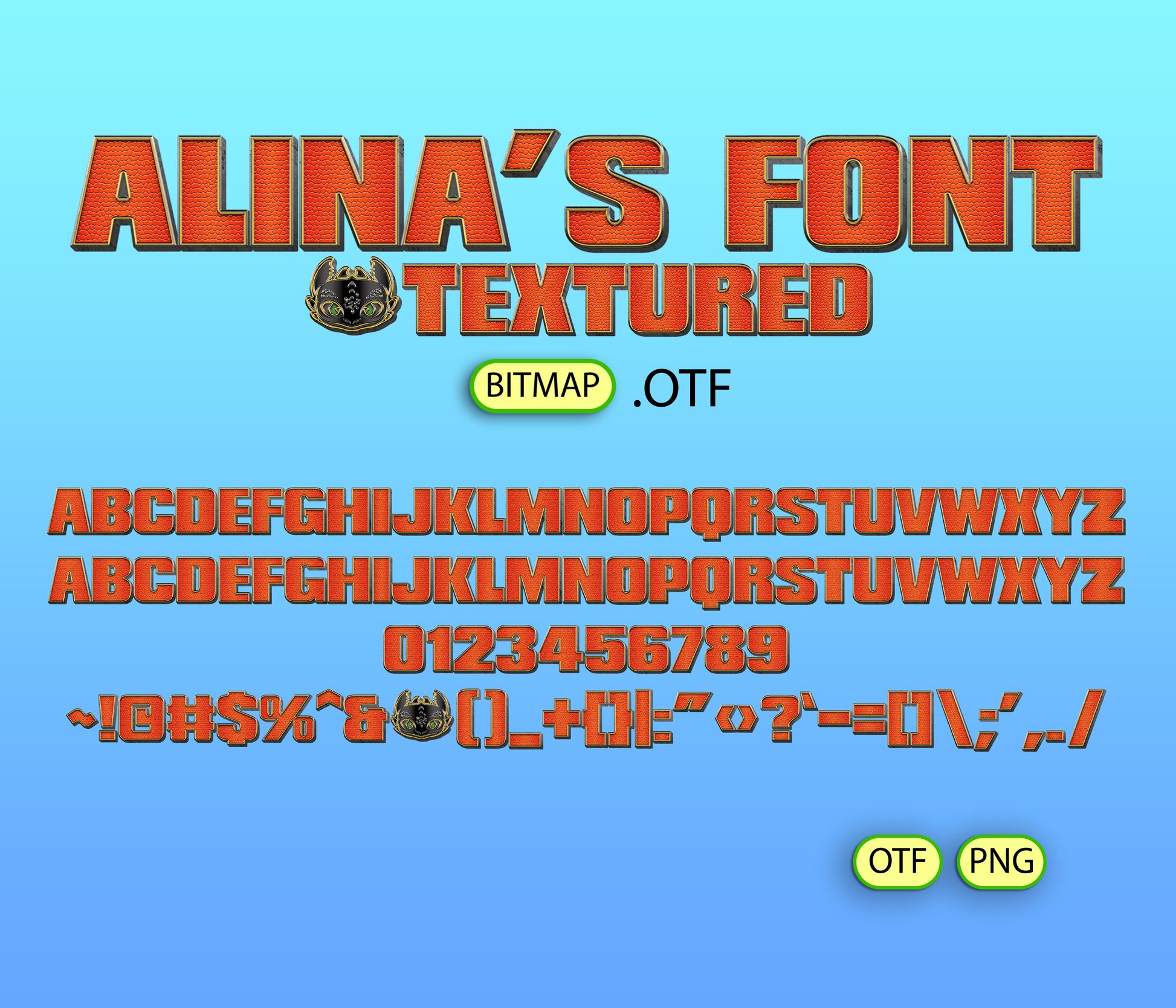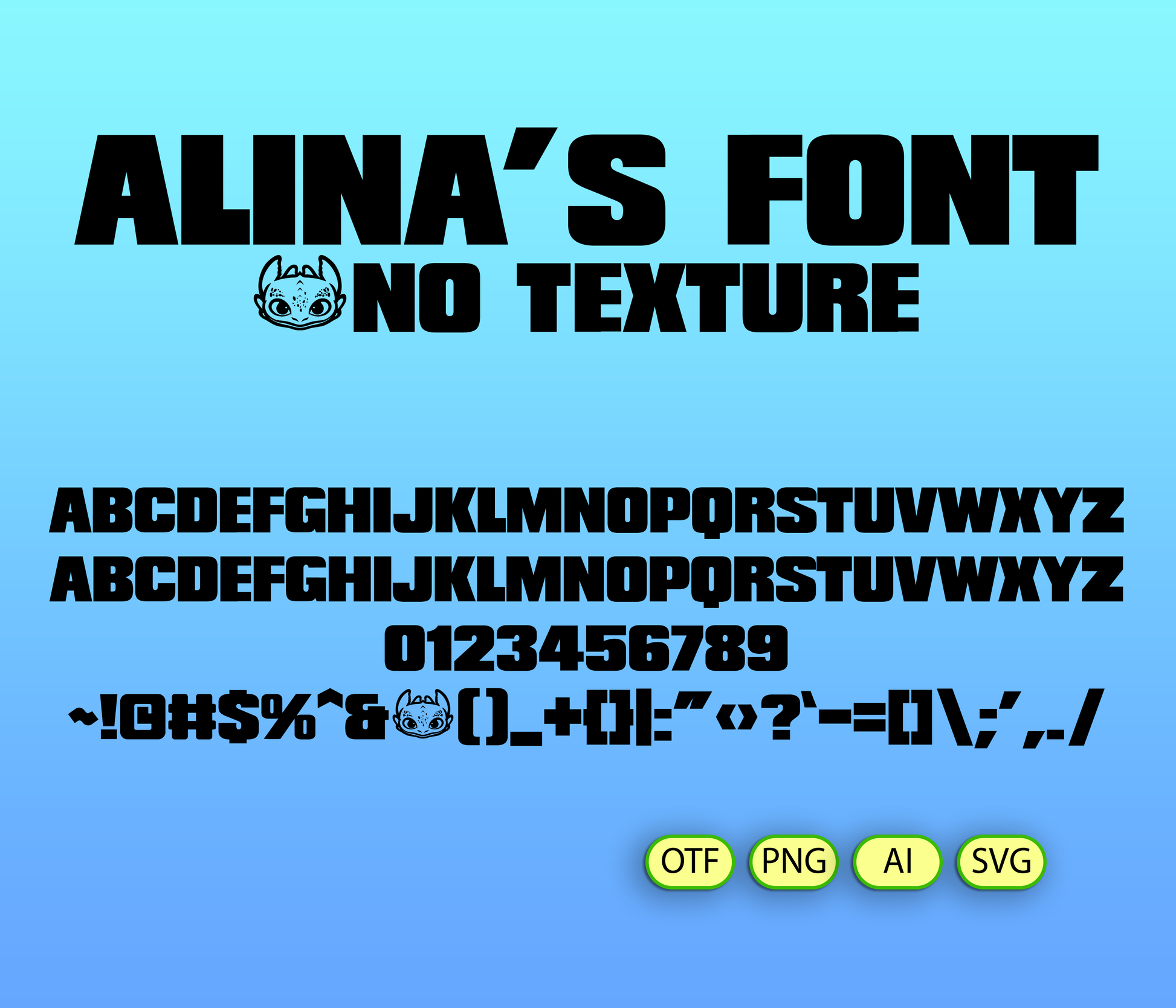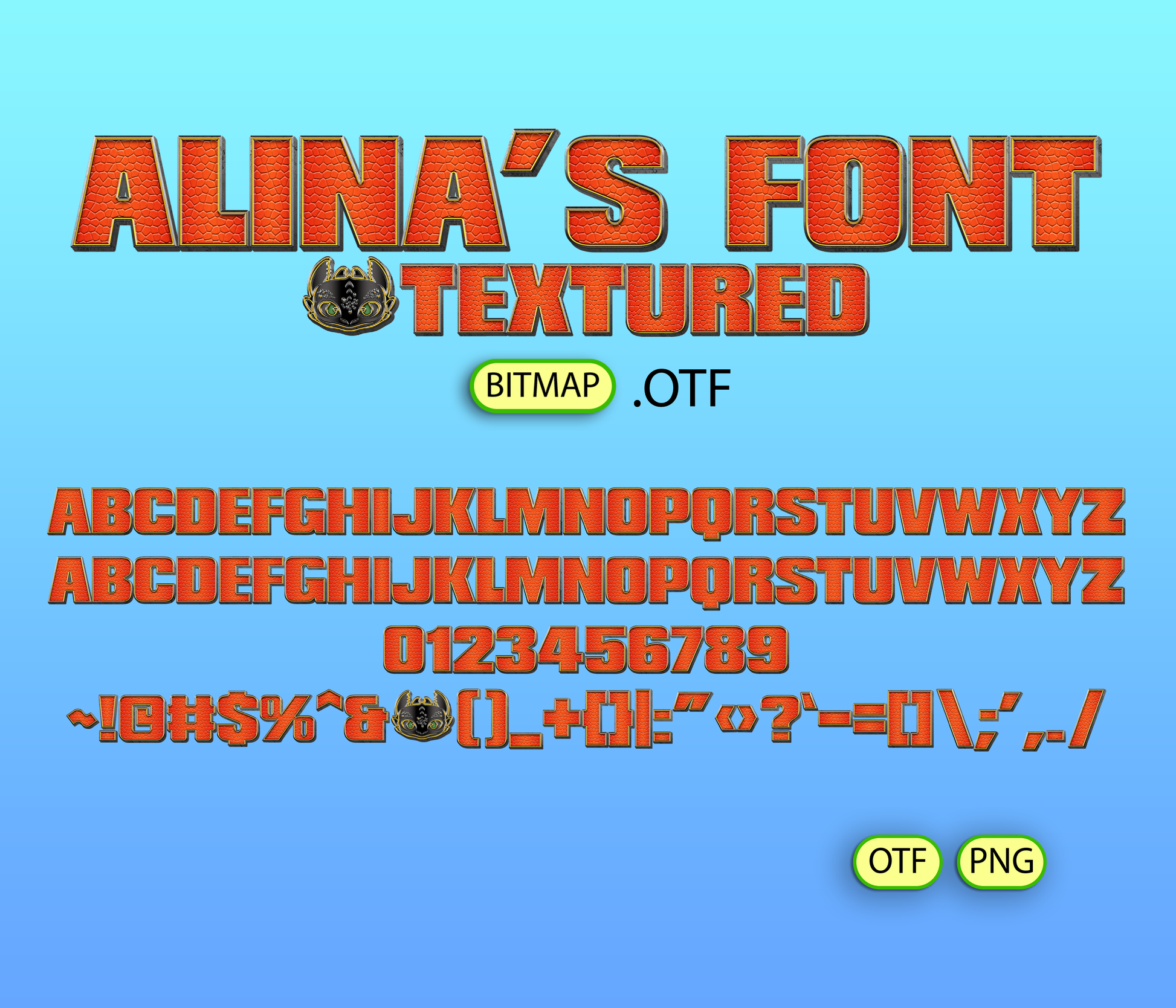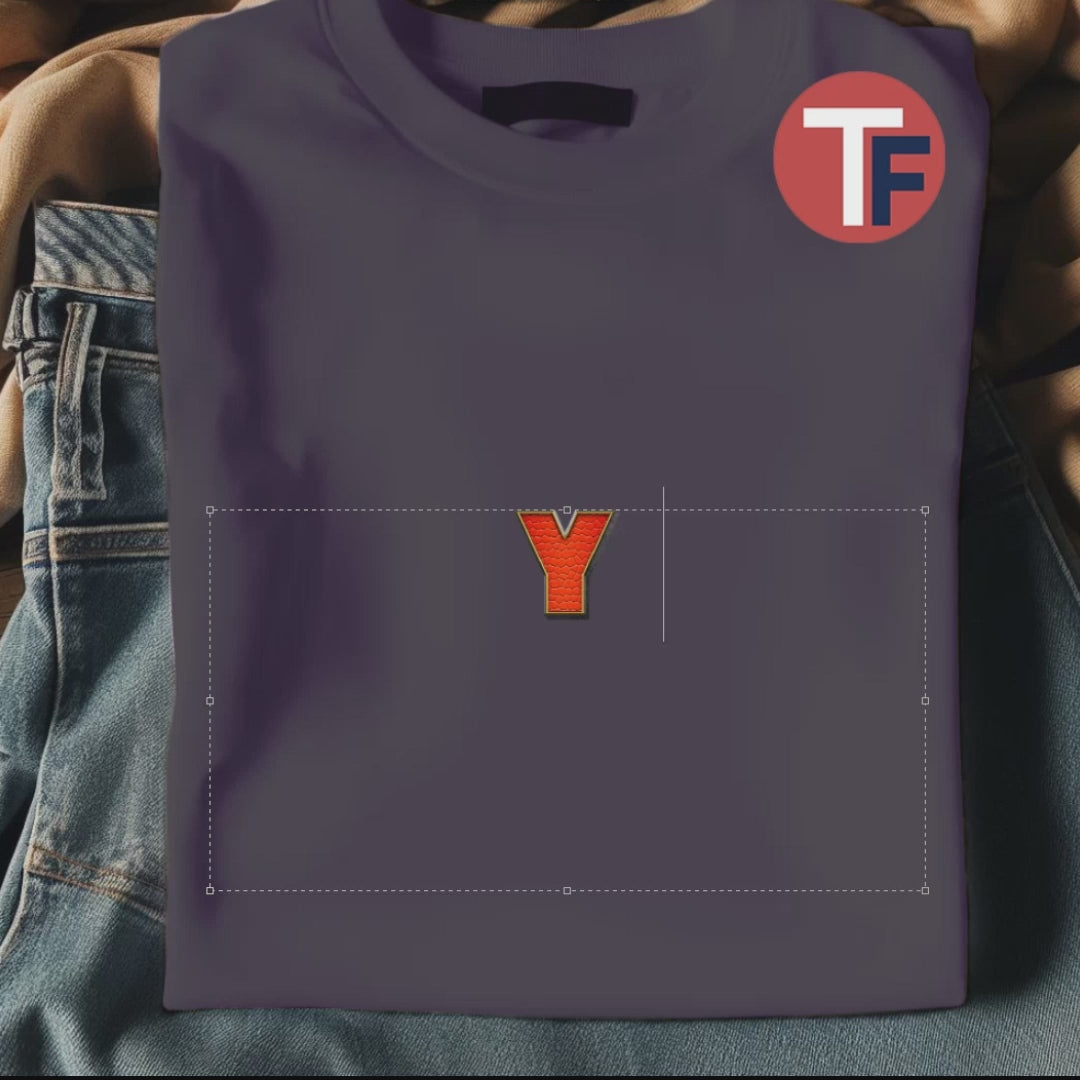
Dragon Adventure Font Textured Bundle
Soar to New Heights with the Dragon Adventure-Inspired Font
Dive into the magical world of dragons and Vikings with our Dragon Adventure-inspired font. Perfect for fans, event planners, and designers looking to capture the adventurous and whimsical essence of the beloved animated film series, this font brings the enchanting and courageous spirit of a young dragon rider and his loyal dragon to your projects. Whether you're creating event invitations, designing themed merchandise, or crafting digital content, our Dragon Adventure font ensures your projects resonate with the magic and adventure of this beloved story.
Our Dragon Adventure-inspired font features bold, dynamic lines and whimsical characters, reflecting the series' fantastical style. Ideal for various applications:
- Event Invitations: Create captivating invites for movie nights, themed parties, or fantasy events.
- Merchandise Design: Design t-shirts, posters, and accessories that capture the essence of Dragon Adventure.
- Digital Media: Enhance websites, blogs, and social media content with vibrant headers and graphics.
- Educational Materials: Use in presentations, worksheets, and educational content focused on storytelling, mythology, or animation.
- Personal Projects: Add adventure to scrapbooking, DIY crafts, or home decor inspired by dragons and Vikings.
To ensure maximum usability and flexibility, our Dragon Adventure-inspired font includes both textured and non-textured variants. The non-textured version is particularly beneficial, ensuring compatibility with all types of software, including Canva. This feature allows users of all skill levels to seamlessly incorporate the font into their designs, enhancing accessibility and ease of use across various digital and print platforms.
Many people seek out a Dragon Adventure Font generator online to mimic the look of the Dragon Adventure Font. Steer clear! No font generator can match the quality of this Dragon Adventure Font, which comes in two versatile versions: a textured colored Dragon Adventure font and a simple Dragon Adventure font. This is particularly beneficial if you plan to use it with a cutting machine.
Our Dragon Adventure font not only pays tribute to the enchanting film series but also empowers you to infuse your designs with its adventurous and magical spirit. Whether you’re crafting promotional materials, designing unique merchandise, or adding a touch of fantasy to personal projects, this font allows you to communicate with the vibrant and dynamic essence that defines Dragon Adventure. Ready to soar with your creative projects? This font is your key to unlocking a world of captivating and adventurous design.